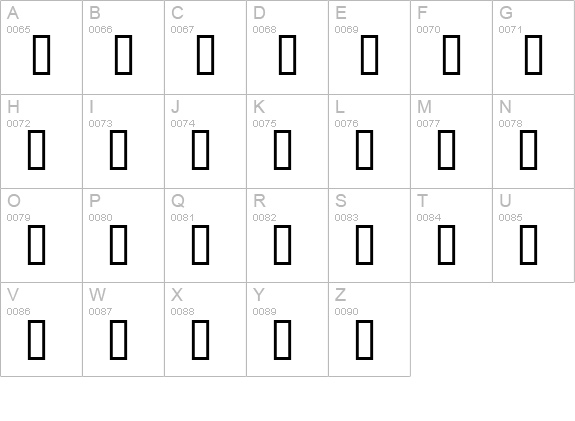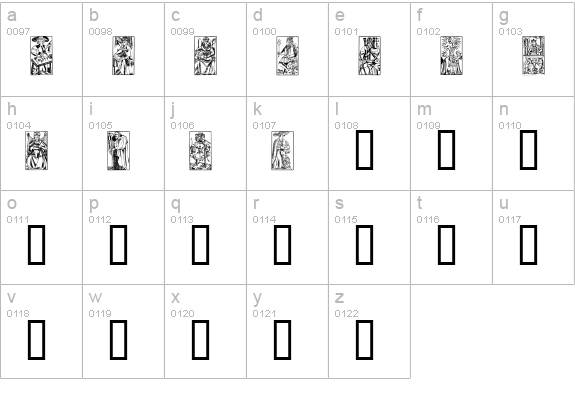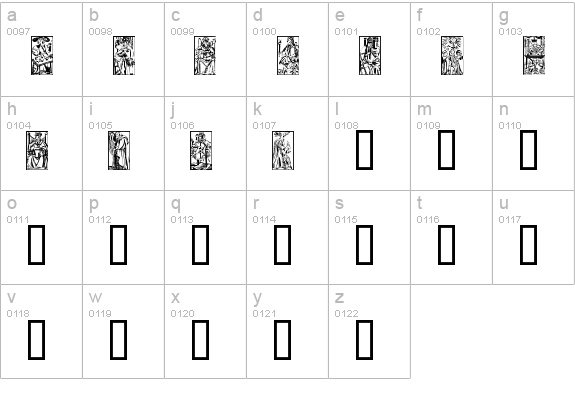
Introducing Marseille Tarot A font, a captivating and enchanting typeface that effortlessly captures the essence of the Marseille Tarot tradition. This beautifully crafted font is a celebration of the rich history and symbolism found in the ancient Marseille Tarot deck, offering a unique blend of elegance and mysticism. Marseille Tarot A font is meticulously designed to reflect the intricate details and intricate patterns found on the cards of the Marseille Tarot deck. Each letter is meticulously hand-drawn, ensuring a level of authenticity and artistry that is truly unparalleled. The graceful curves and delicate lines of this font perfectly emulate the timeless beauty of the Marseille Tarot cards, transporting you to a world of divination and intrigue. What sets Marseille Tarot A font apart is not only its stunning visual appeal, but also its versatility. Whether you're designing a mystical poster, creating captivating book covers, or crafting spellbinding invitations, this font will effortlessly enhance your projects with its alluring charm. One of the most remarkable aspects of Marseille Tarot A font is that it is freely available to download at FontsMarket.com. This means that you can easily bring the magic and allure of the Marseille Tarot tradition into your own creations without any cost. FontsMarket.com is a trusted source for high-quality fonts, and Marseille Tarot A font is no exception. With just a few simple clicks, you can add this enchanting typeface to your collection and embark on a creative journey like no other. Unlock the power of Marseille Tarot A font and let its captivating elegance and evocative symbolism breathe life into your designs. Whether you're a seasoned designer or a passionate enthusiast, this font will undoubtedly become a cherished tool in your creative arsenal. Immerse yourself in the mystical world of the Marseille Tarot tradition and let your imagination run wild with Marseille Tarot A font. Download it for free at FontsMarket.com and embark on a creative journey that will leave a lasting impression on all who encounter your designs.